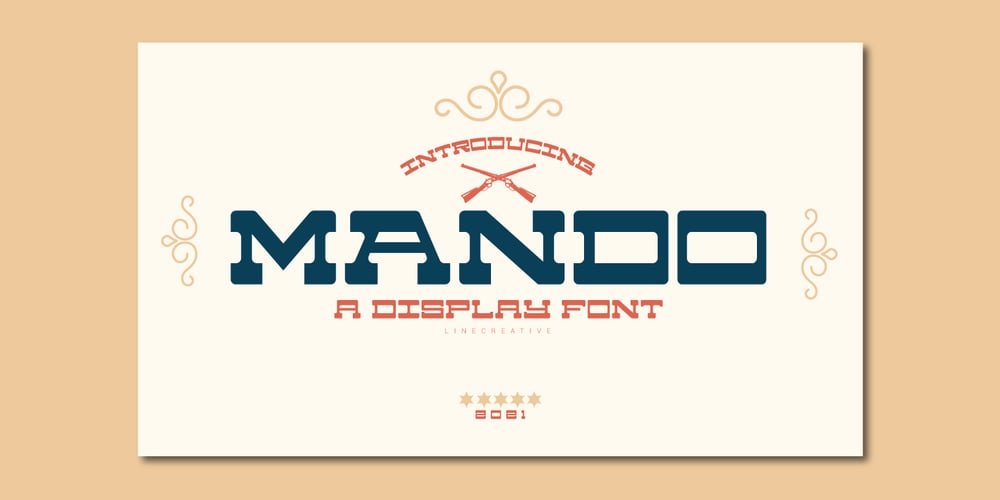
Mando Font Family was designed by Ari Juanda and published by Linecreative. Mando contains 1 styles and family package options. Mando is a fun and fancy slab serif typeface, they have a unique weight bar and slab inspired by retro western sign. this font is a fun theme very good for display, tshirt design, craft, quote sign, logotype and etc